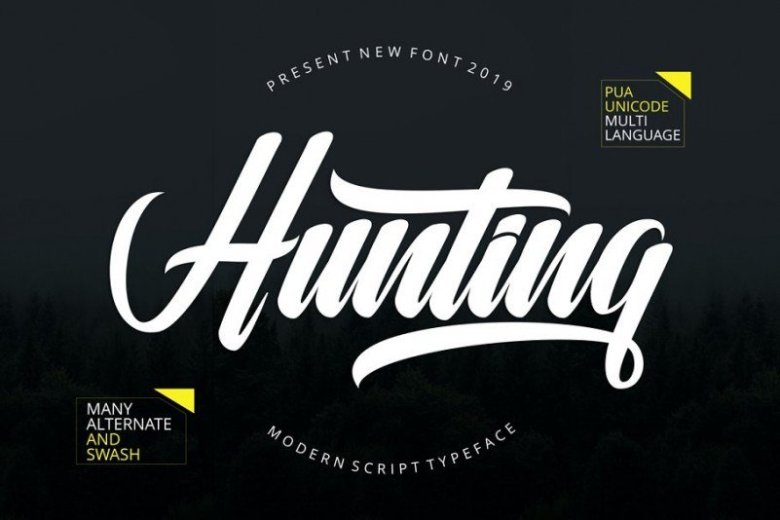
Hunting Script Font
A modern script typeface, this font made with perfect combining of each characters. It looks original and can be used for all your project needs.
Introducing Hunting Font!  It is design and shared by Musafir LAB. This versatile script type includes many different alternatives for each lowercase letter. This font. It’s fun to use because every word can be changed to your liking.
This font works very well for Logo and Clothing Design. This is also great for making Molds or Merchandise, because you can use illustrative quality shapes to create artwork. and this font is multi language international.